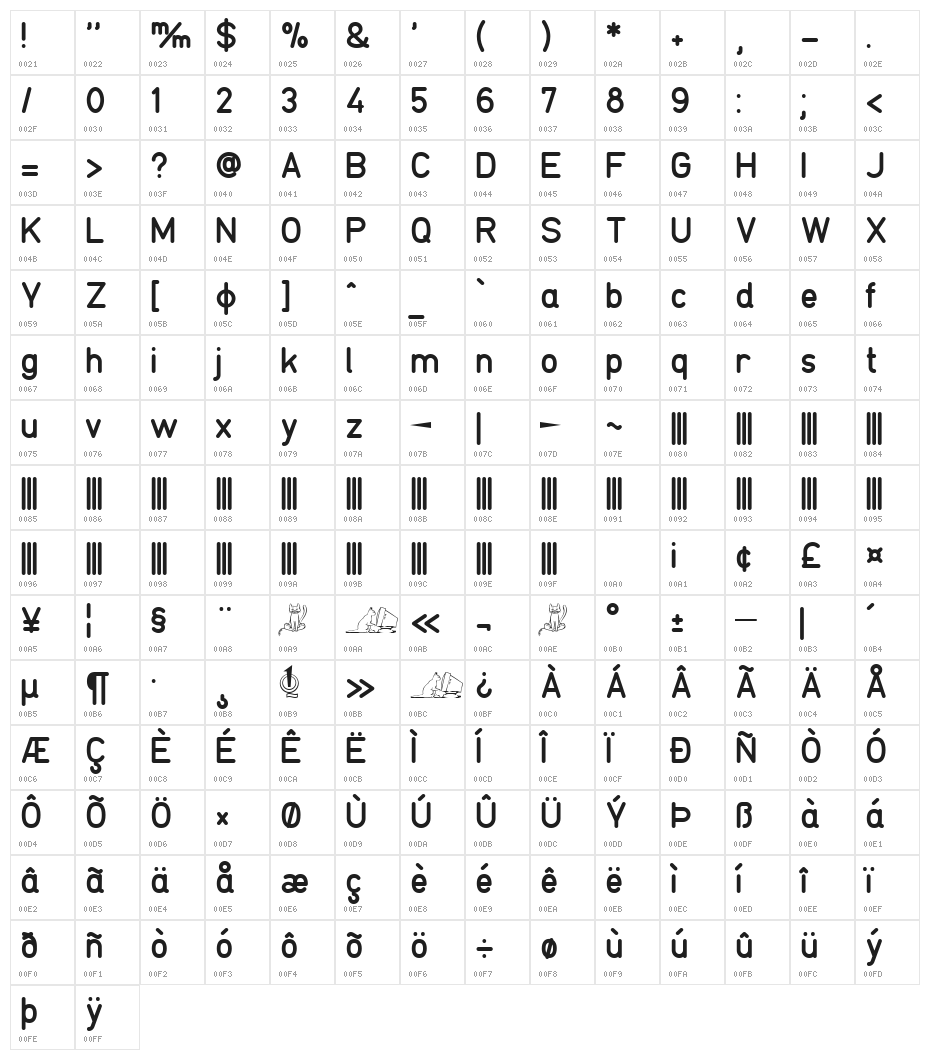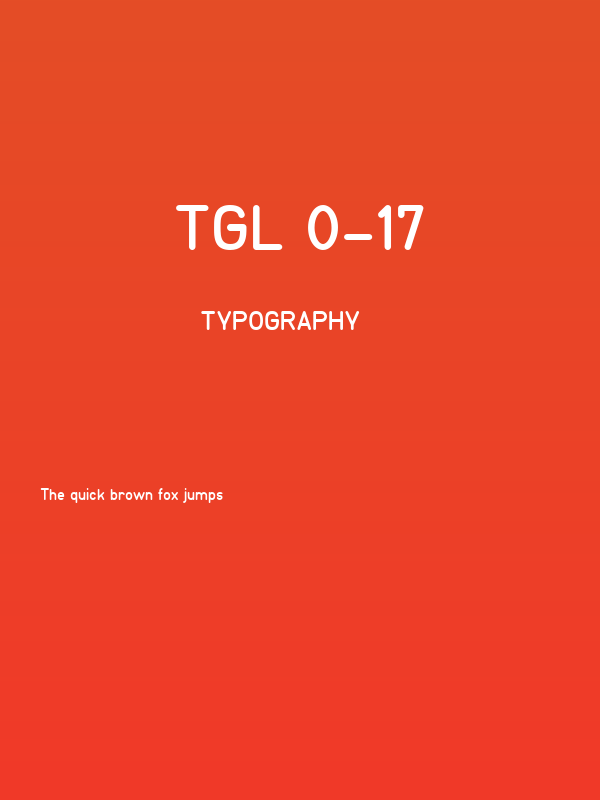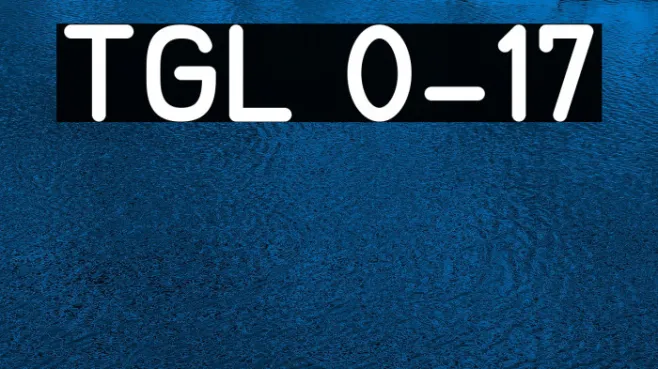
TGL 0-17 Font
TGL 0-17 Description
This font features a clean and modern sans-serif design with rounded edges, giving it a friendly and approachable appearance. The characters are evenly spaced, contributing to excellent readability. The uniform stroke width throughout the font provides a balanced and harmonious look. The uppercase and lowercase letters are well-proportioned, and the numerals are clear and distinct. Special characters are included, maintaining the same rounded style, which makes this font versatile for various uses.
| Proposed Projects | Ideal for digital interfaces, branding, advertising, and signage due to its clarity and modern appeal. |